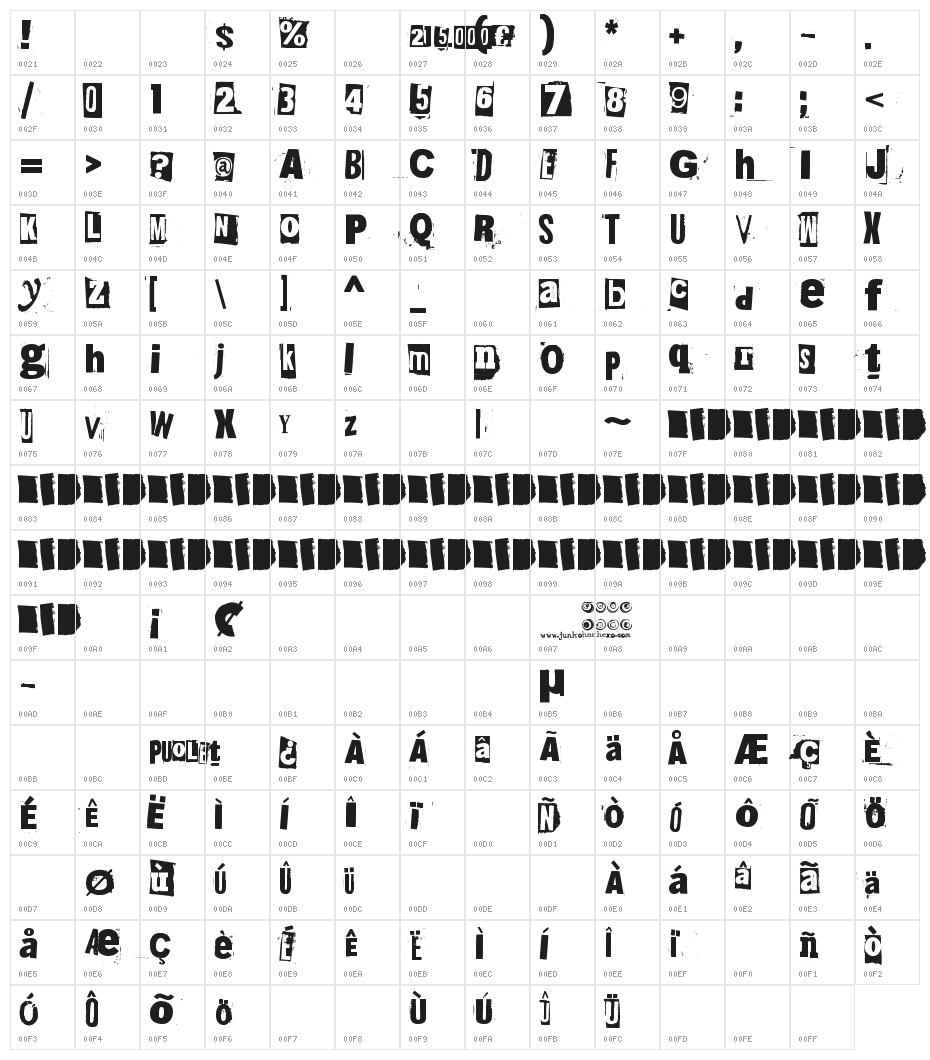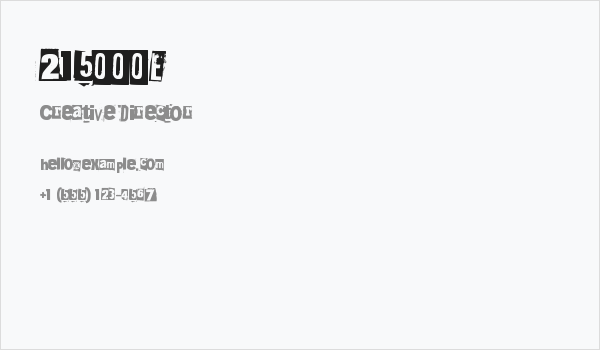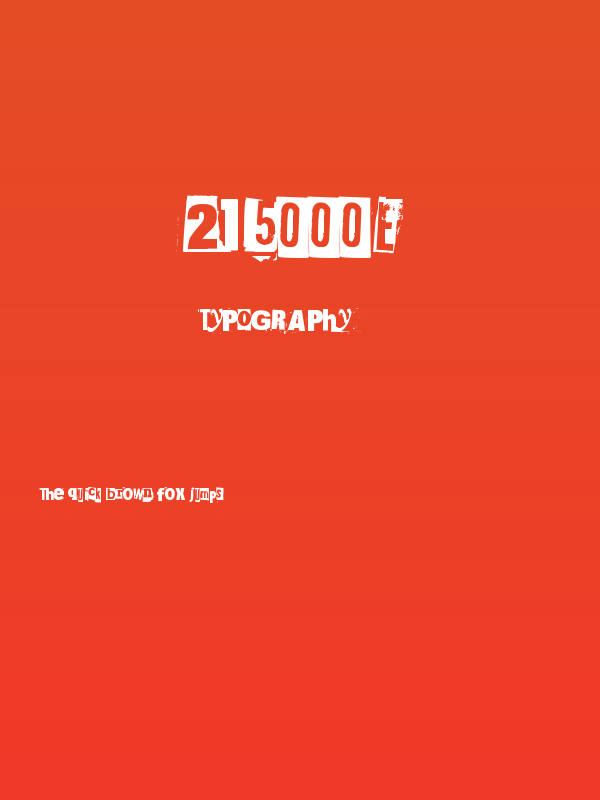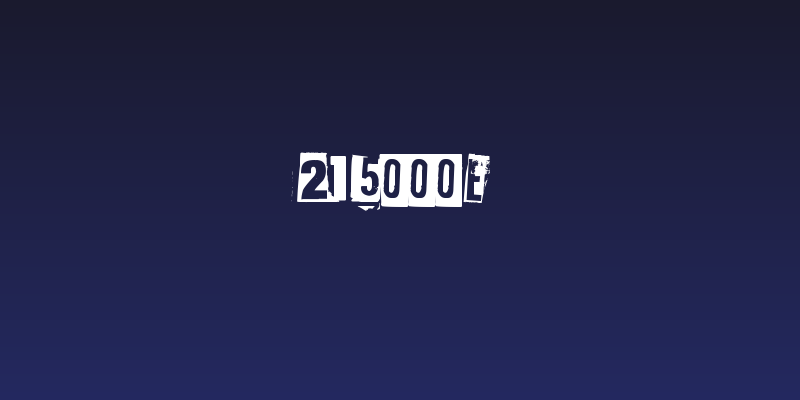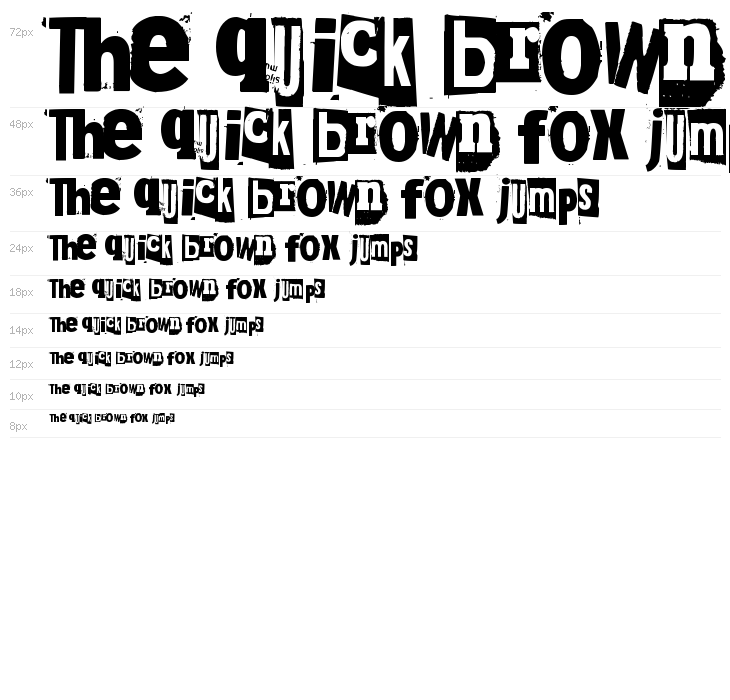
215000E Font
✎ Distorted Eroded
| Kategorien | Distorted Eroded |
| Gesamtstil | Grunge, Eclectic |
| Anwendungsfall | Headlines, Posters, Artistic projects |
| Vorgeschlagene Projekte | Ideal for album covers, posters, zines, or any project needing a rebellious, edgy look. |